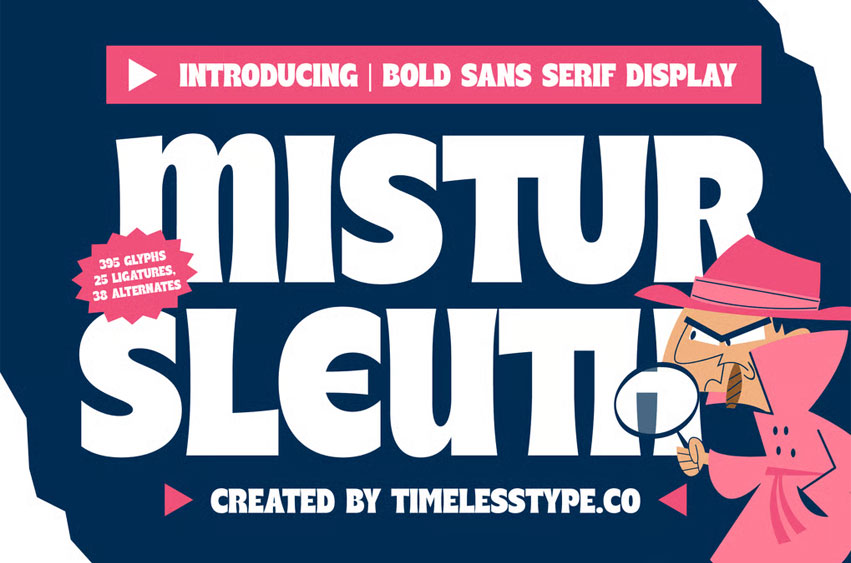
Mistur Sleuth Font
Mistur Sleuth Font is a bold sans serif display font with a quirky, comic-inspired personality. Designed with 25 ligatures and 38 alternates, it brings a fun and adventurous look to your projects.
Perfect for posters, cartoons, packaging, and playful headlines, Mistur Sleuth combines vintage detective charm with bold modern shapes — making every design feel dynamic, expressive, and full of character.